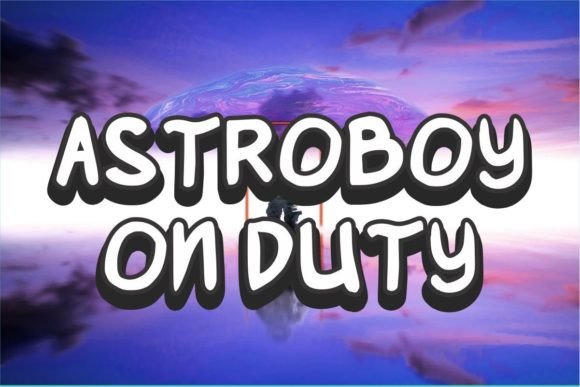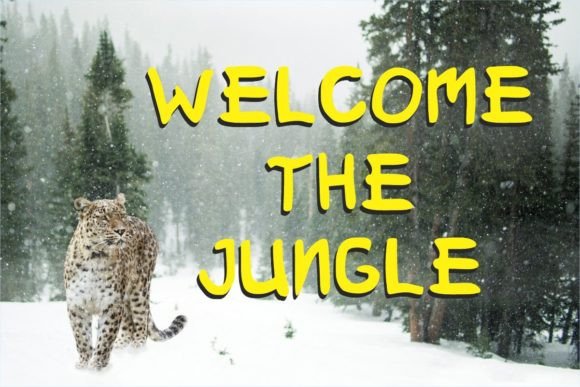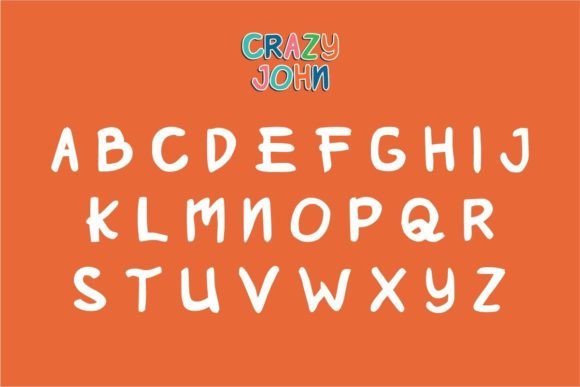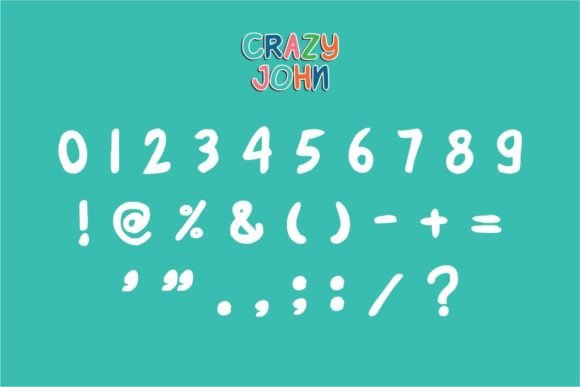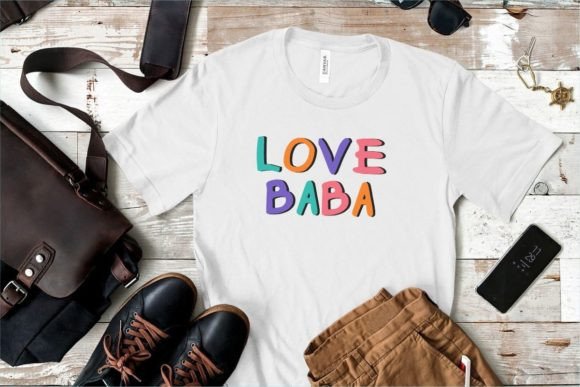
Unlocking the Playful Charm of Crazy John Font
Do you remember the moment when you stumbled upon a font that made your design pop? For me, it was a rainy Saturday afternoon spent browsing through a font library, searching for the perfect fit for a children’s book cover. That’s when I discovered Crazy John Font – a delightful display font that captured the whimsy and playfulness I was looking for.
This adorable font is designed to add a touch of fun and innocence to your designs, making it perfect for cartoon-related projects, children’s games, or any other creation that needs a lovable vibe. With its endearing charm, Crazy John Font is a valuable asset for designers looking to infuse their work with a sense of playfulness and wonder.
Crazy John Font Key Features
- Font Family: Crazy John is a sans-serif font family designed specifically for display use.
- Unique Characteristics: Crazy John Font is known for its bold, playful, and energetic feel, making it ideal for use in advertising, signage, and other display applications.
- X-Height and Line Spacing: Crazy John Font features an x-height of 0.85 and a line spacing of 1.2, which contributes to its unique and energetic feel.
Crazy John Font Review
I recently had the chance to work with the Crazy John Font, and I’m here to give you my honest take on this font.
- Crazy John Font has a unique and playful personality that’s perfect for projects that need a bit of whimsy.
- The font is highly customizable, with a wide range of style options available to match your design needs.
- The font is relatively lightweight, making it easy to use on a variety of devices and platforms.
- The font may not be the best choice for formal or professional projects, as its playful nature may come across as unprofessional.
- The font can be a bit difficult to read at smaller sizes, so be sure to test it out at different scales before committing to a design.
- The font’s unique style may not be to everyone’s taste, so be prepared for feedback or suggestions for alternative fonts.
Overall, I think the Crazy John Font is a solid choice for designers looking to add some personality to their projects. While it may not be the best fit for every project, it’s a great option for those looking to add a bit of whimsy and fun to their designs.
Some tips for getting the most out of Crazy John Font include:
– Experimenting with different font sizes and styles to achieve a unique look.
– Using the font in combination with other fonts to create a visually appealing design.
– Applying effects, such as shadows or outlines, to enhance the text.
Common use cases for Crazy John Font include:
– Creating eye-catching headings and titles.
– Adding a touch of whimsy to designs.
– Creating a playful or humorous tone in branding and marketing materials.
Alternatives to Crazy John Font
Playfair Display is a high-end serif font that is ideal for formal and luxurious designs. It features elegant, intricate details and a classic look. When to use: Use for luxury branding, high-end product labels, and formal invitations. Compared to Crazy John Font: Playfair Display has a more sophisticated and elegant feel, whereas Crazy John Font has a more informal and quirky feel.
Great Vibes is a modern script font that is perfect for creating a relaxed and casual atmosphere. It features a flowing, handwritten style that is great for branding, packaging, and advertising. When to use: Use for casual branding, product packaging, and advertising campaigns. Compared to Crazy John Font: Great Vibes has a more relaxed and casual feel, whereas Crazy John Font has a more quirky and playful feel.